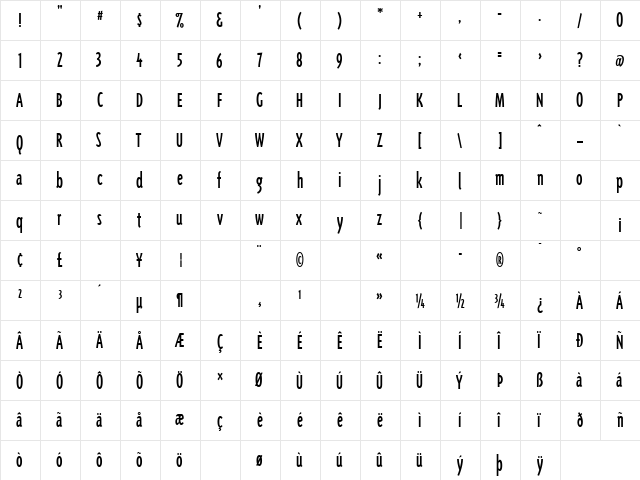
TriplexConRegLining Regular
Design Context for TriplexConRegLining Typeface
TriplexConRegLining is a composed and adaptable typeface that performs quietly and consistently across a wide range of design contexts.